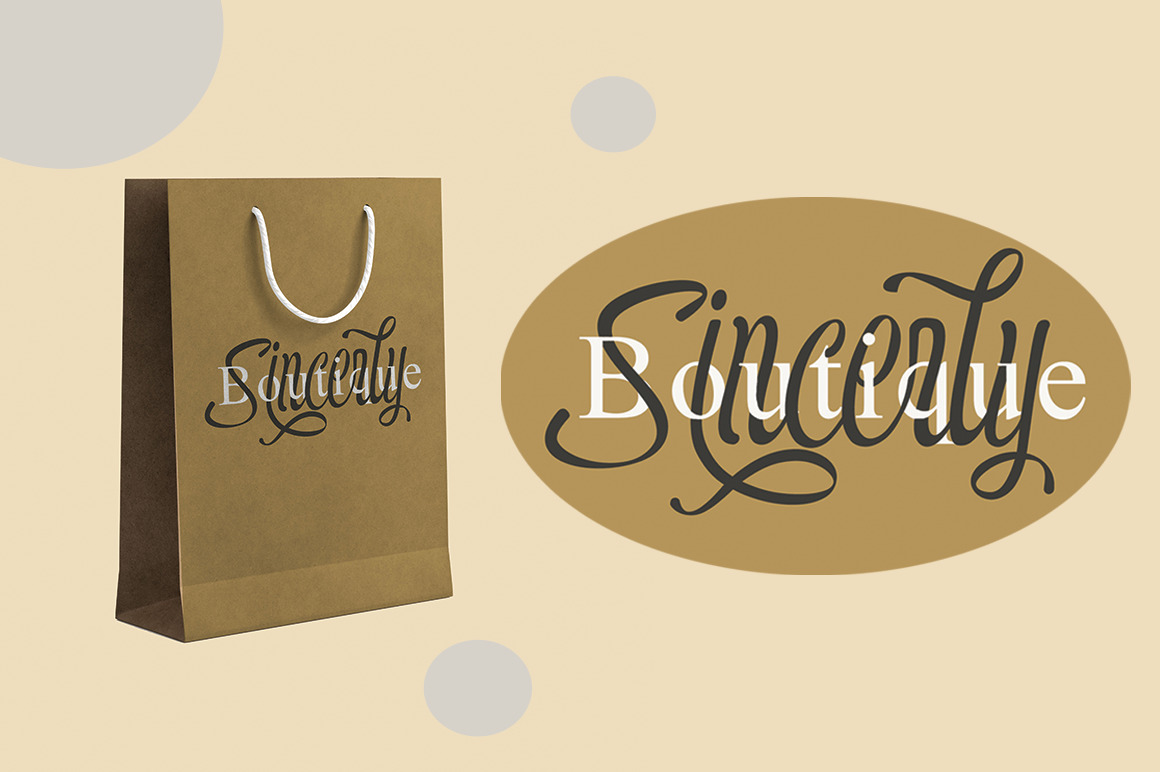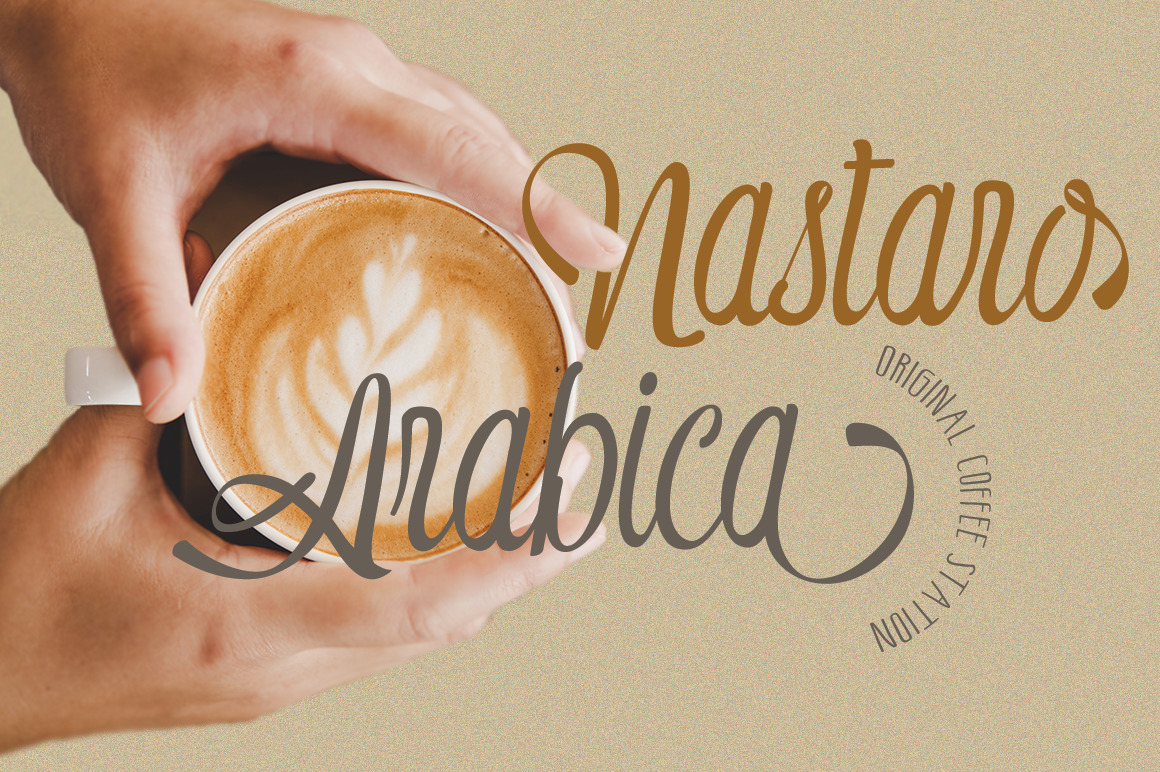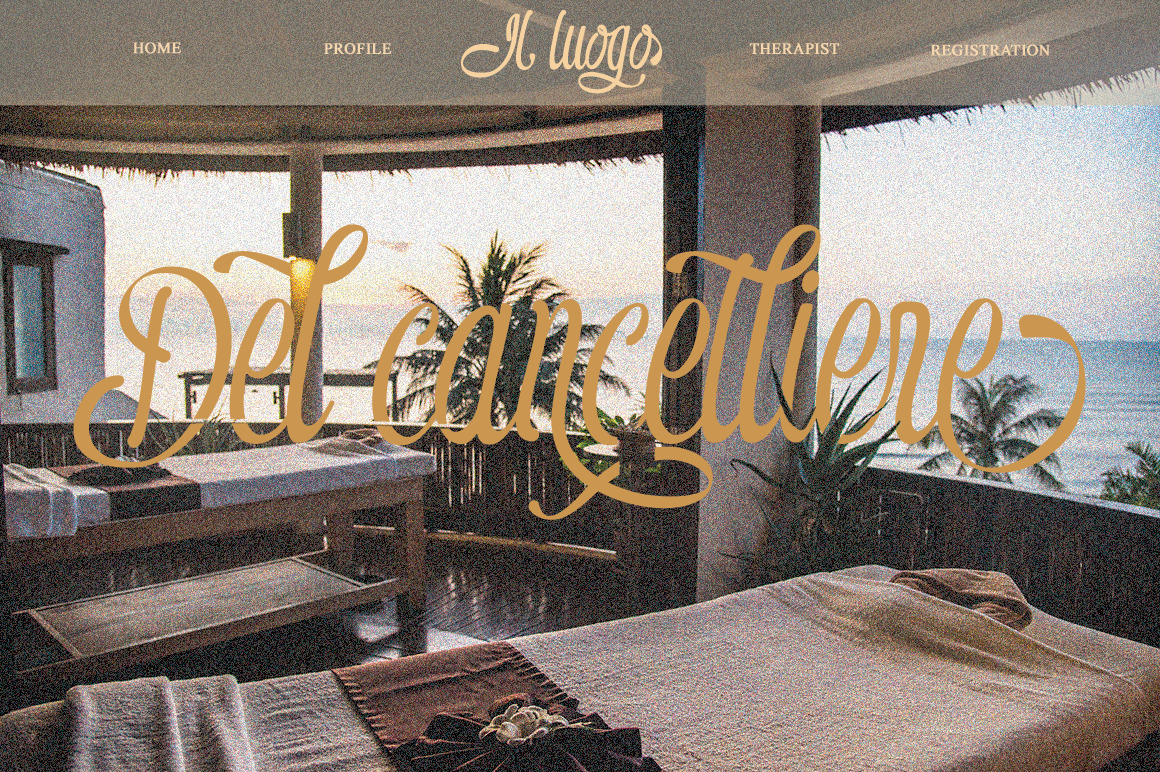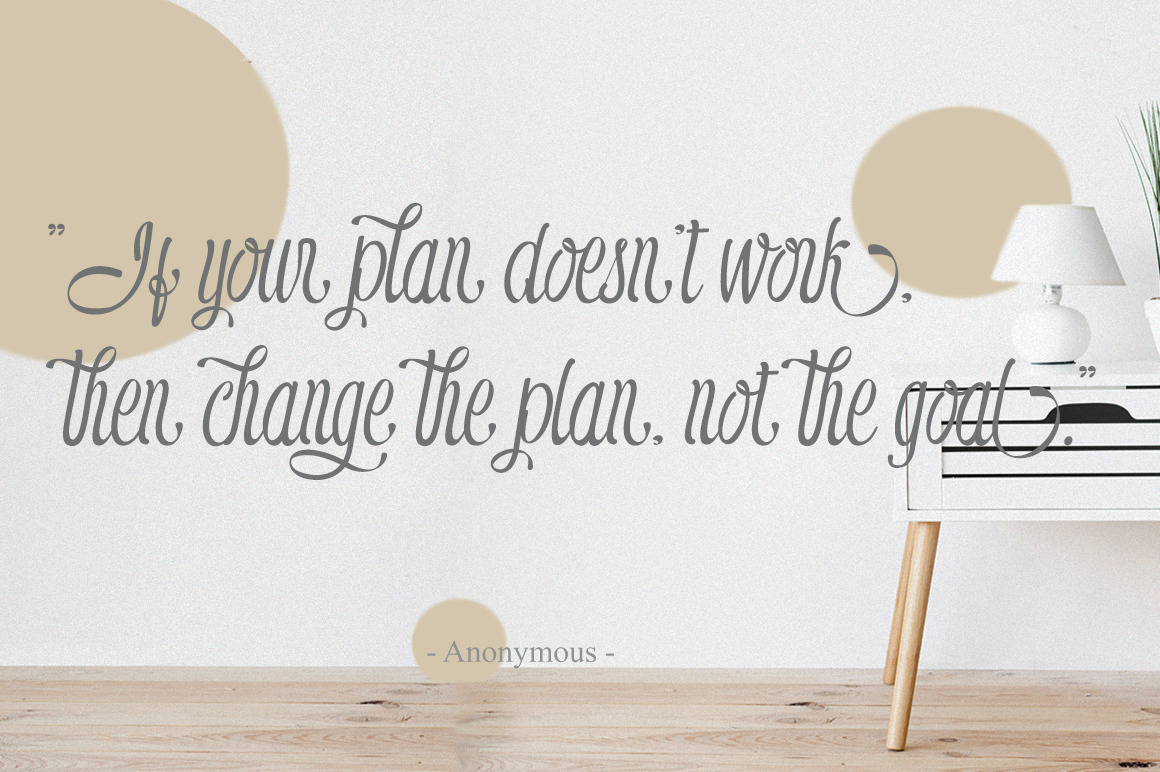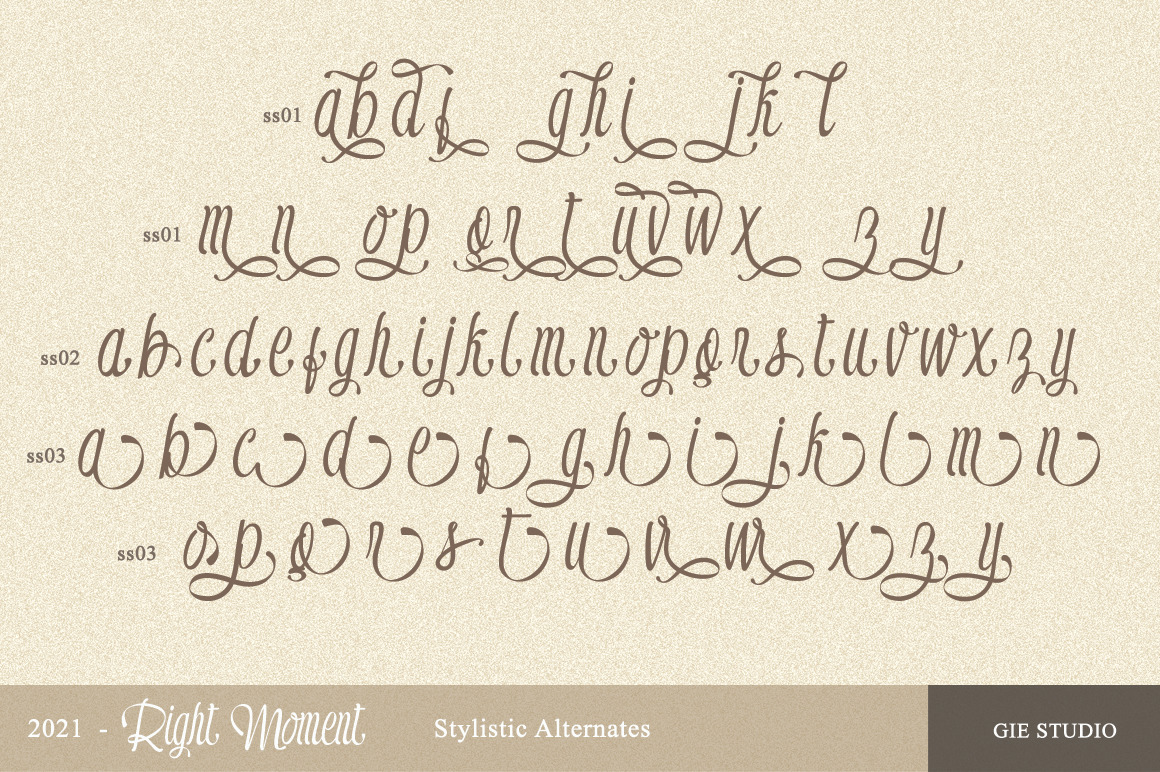
Right Moment Font
Right Moment is a romantic and sweet calligraphy typeface with characters that dance along the baseline. It will add a luxury spark to any design project that you wish to create! This font is PUA encoded which means you can access all of the amazing glyphs and ligatures with ease !
Right Moment font will be very interesting if you use it for all your design purposes such as; logos, wedding invitation, business cards, printed quotes, invitations of all sorts, cards, packaging, and your website or social media branding.